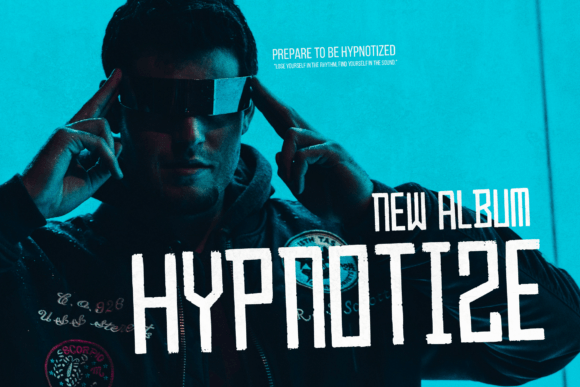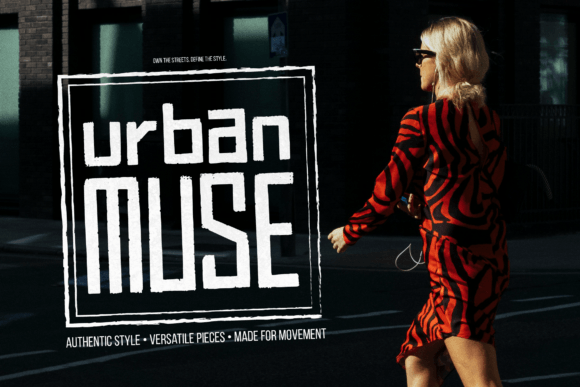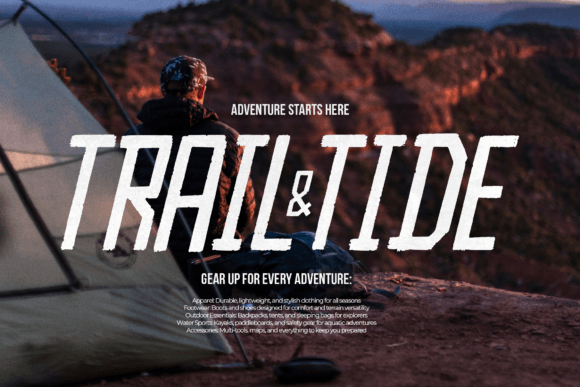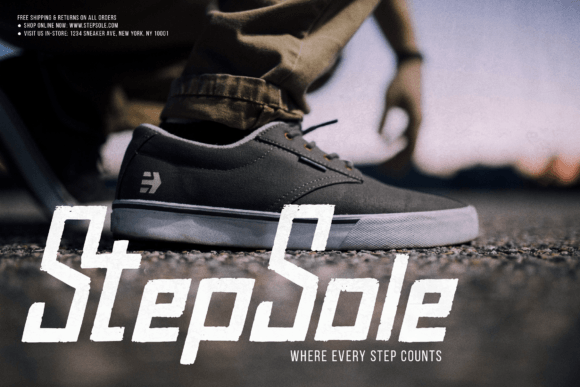
The Perfect Urban Touch: Unlocking the Power of Distress Marker Font
Do you remember that moment when a font just clicks, and you know exactly what you want to create? For many designers, it’s that instant spark of inspiration that sets their projects ablaze. For me, it’s the Distress Marker Font – a versatile and edgy urban typeface that adds a unique twist to any design. This font is a game-changer for creatives who want to give their projects a gritty, metropolitan vibe.
As a go-to font for logos, branding projects, and homeware designs, Distress Marker Font is the perfect companion for designers who want to add an urban touch to their work. Its value lies in its adaptability, making it suitable for a wide range of projects, from product packaging to t-shirts and book covers. Whether you’re working on a logo or a label, this font is sure to elevate your design and leave a lasting impression.
Distress Marker Font Key Features
- Font Family: Distress Marker Font is a distressed, marker-style font designed for creative and artistic applications.
- Unique Characteristics: Distress Marker Font features a distressed, hand-drawn look with subtle texture and imperfections, giving it a unique and artistic feel.
Distress Marker Font Review
Overall, I was excited to try out the Distress Marker Font, but my experience was a bit of a mixed bag. Let’s start with the good stuff ✨
- Unique and creative look**: This font is definitely a head-turner. The distressed, hand-drawn feel gives it a one-of-a-kind look that’s perfect for adding some personality to your designs.
- Great for creative projects**: I think this font shines in projects where you want to convey a sense of informality or whimsy, like for a children’s book or a quirky blog.
However, there are a few limitations that kept me from giving it a full thumbs up ⚠️
- Limited legibility**: In certain situations, the font can be difficult to read, especially at smaller sizes. This might not be a problem if you’re using it for a bold, eye-catching headline, but it could be a challenge for body text.
- Not ideal for formal projects**: While I love the creative vibe of this font, it might not be the best choice for more formal or professional projects, like a corporate brochure or a business report.
Overall, I think the Distress Marker Font is a great choice for designers who want to add some personality and whimsy to their projects. Just be mindful of its limitations and use it in situations where it will shine.
Practical Application Guide: Distress Marker Font
The Distress Marker Font is ideal for:
- Adding a distressed or vintage look to your text.
- Creating a bold, eye-catching headline.
- Designing a distressed or weathered effect for a logo or brand identity.